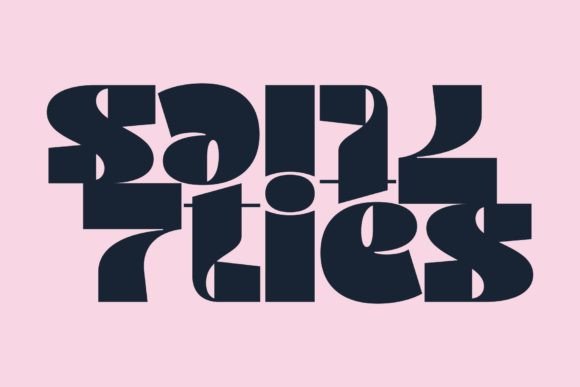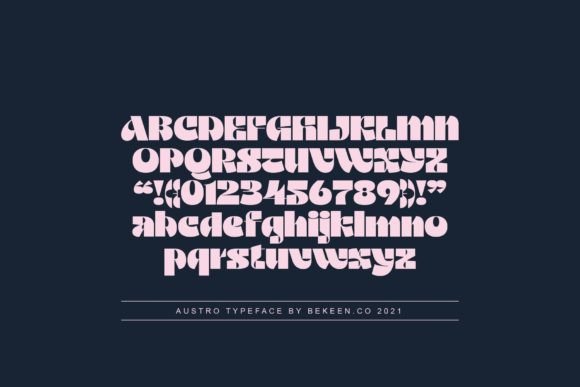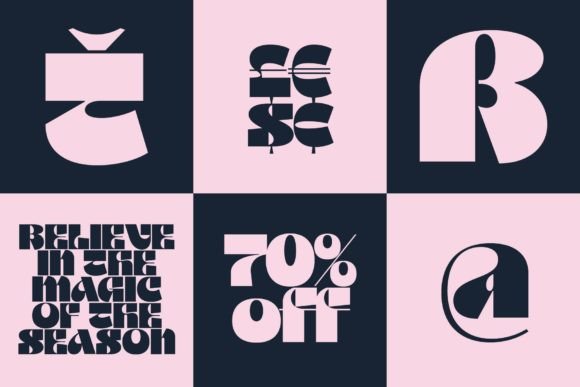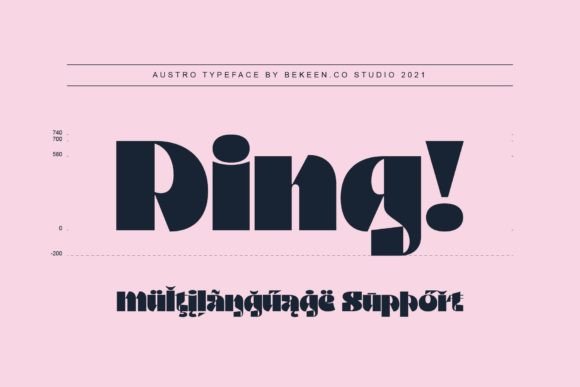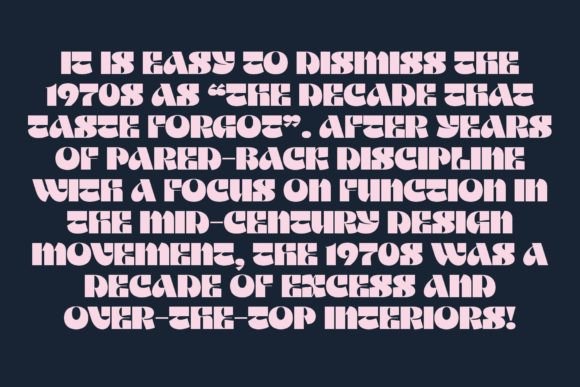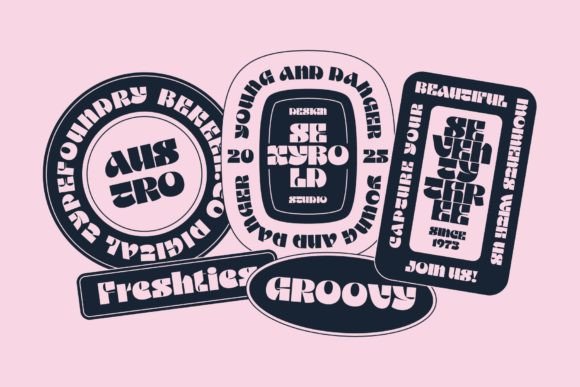
Austro Font: A Modern Take on a Classic Geometric Design
In the world of typography, few fonts have made a lasting impact like the Austro font. Modeled after the original Motter Ombra designed by Othmar Motter in 1973, Austro brings a fresh perspective to the table with its geometric shapes and versatile design. In this article, we’ll dive into the world of Austro font, exploring its history, features, and uses, making it a must-read for designers and crafters alike.
The Origins of Austro Font
Austro font is a modern reinterpretation of the classic Motter Ombra, designed by Othmar Motter in 1973. Motter Ombra was a groundbreaking font in its time, known for its geometric shapes and unique character. The original design was ahead of its time, and its influence can still be seen in many modern fonts. Austro font takes the best elements of Motter Ombra and updates them for the modern era, making it a perfect blend of retro and contemporary design.
Design and Features of Austro Font
Austro font is characterized by its geometric shapes, which give it a distinctive and futuristic look. The font features clean lines, precise curves, and a well-balanced structure, making it perfect for a wide range of applications. The design is versatile, and the font can be used for editorial work, logo design, clothing branding, product packaging, headlines, and much more.
What Makes Austro Font Special?
So, what sets Austro font apart from other fonts? Here are a few key features that make it a standout:
- Geometric shapes: The font’s geometric shapes give it a unique and modern look that’s perfect for designs that require a touch of futurism.
- Versatility: Austro font is incredibly versatile and can be used for a wide range of applications, from editorial work to logo design and product packaging.
- Legibility: The font is highly legible, making it perfect for body text and headlines.
- Customizability: Austro font can be easily customized to fit your design needs, making it a great choice for designers who want to create unique and personalized designs.
Uses of Austro Font
Austro font is a highly versatile font that can be used in a variety of contexts. Here are some of the most popular uses of the font:
- Editorial work: Austro font is perfect for editorial work, including magazines, newspapers, and books.
- Logo design: The font’s geometric shapes make it a great choice for logo design, particularly for brands that want to convey a sense of modernity and futurism.
- Clothing branding: Austro font is a great choice for clothing branding, particularly for brands that want to create a bold and eye-catching look.
- Product packaging: The font’s clean lines and precise curves make it perfect for product packaging, particularly for brands that want to create a premium and high-end look.
- Headlines: Austro font is perfect for headlines, particularly for designs that require a bold and attention-grabbing look.
Why Designers and Crafters Love Austro Font
Designers and crafters love Austro font for its versatility, legibility, and customizability. The font’s geometric shapes give it a unique and modern look that’s perfect for designs that require a touch of futurism. Additionally, the font’s high legibility makes it perfect for body text and headlines. Whether you’re a designer or crafter, Austro font is a great choice for anyone looking to create unique and personalized designs.
In conclusion, Austro font is a modern take on a classic geometric design that’s perfect for designers and crafters alike. With its geometric shapes, versatility, and legibility, Austro font is a great choice for a wide range of applications, from editorial work to logo design and product packaging. Whether you’re looking to create a bold and eye-catching design or a premium and high-end look, Austro font is a great choice. So why not give it a try and see what amazing designs you can create?